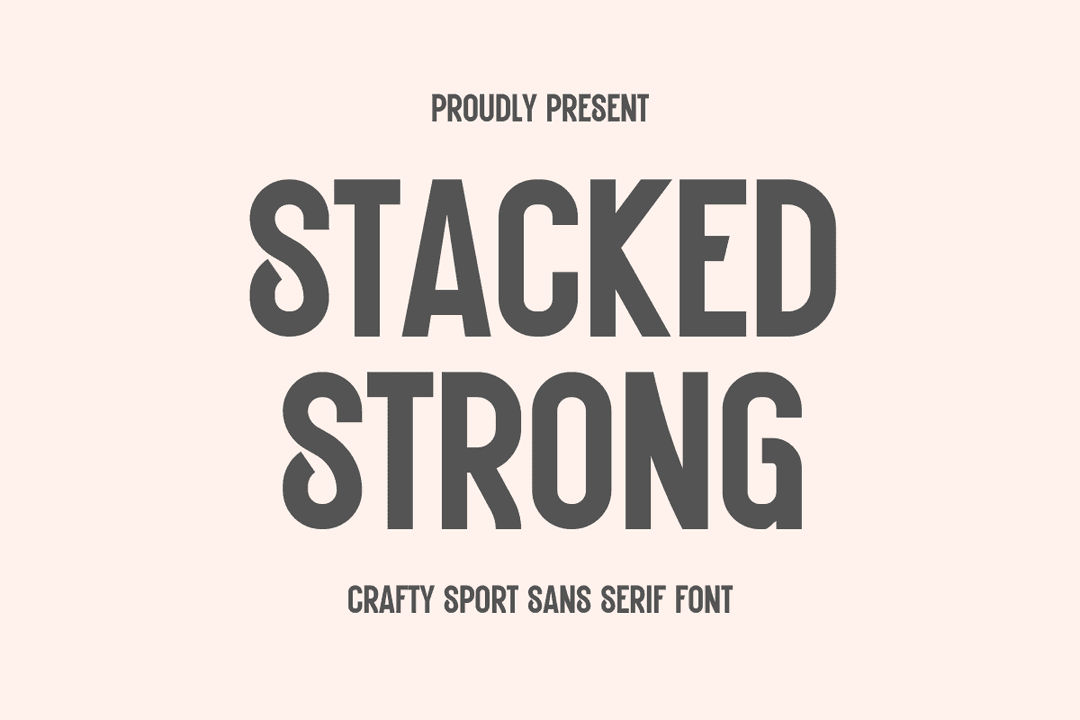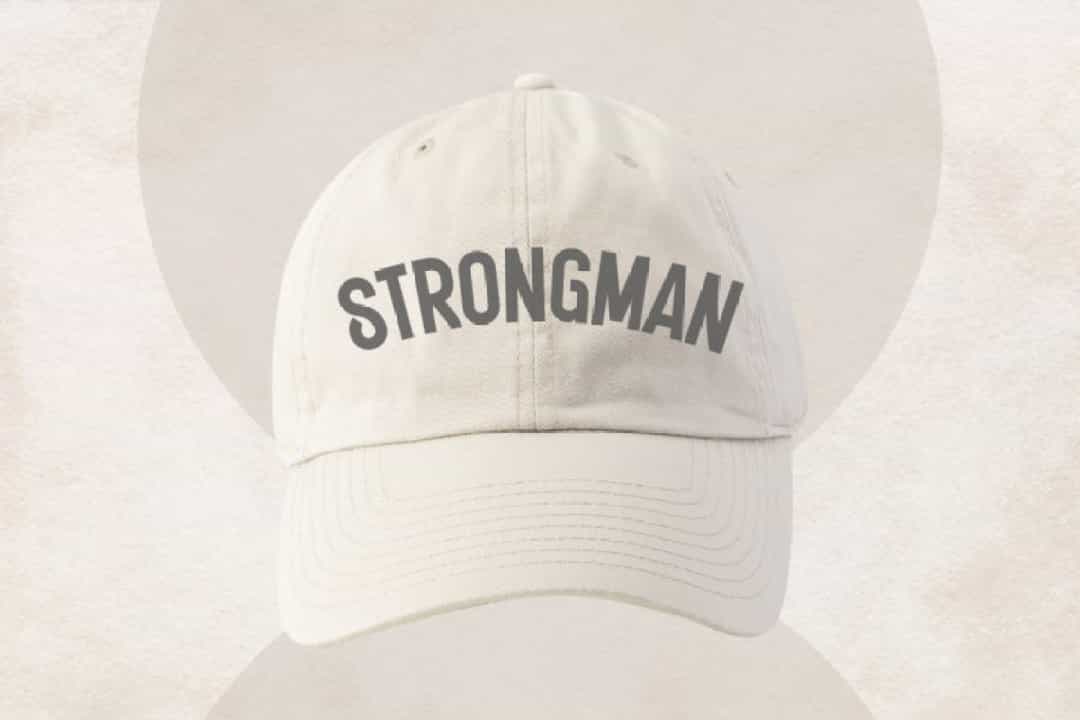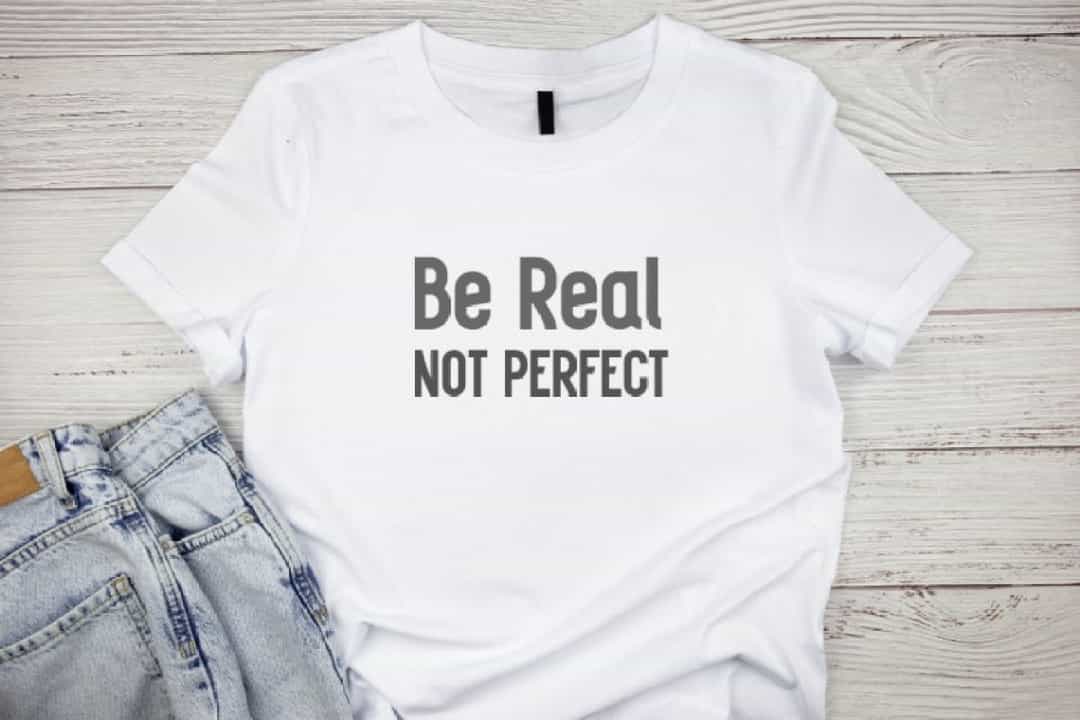
Stacked Strong is a sporty sans serif font designed specifically for university use, making it the ideal font choice for creative purposes such as labels and titles, DIY crafts, stickers brand names, branding logos, business and t-shirt SVG Cricut designs, among many others.